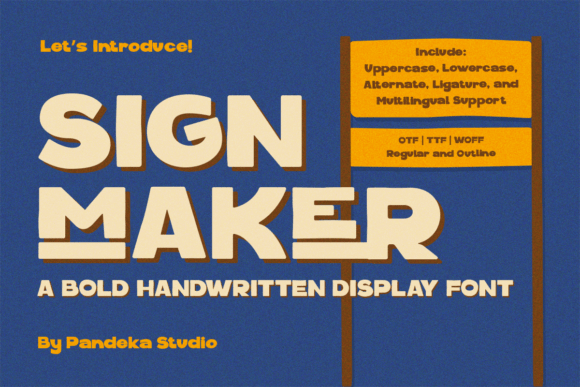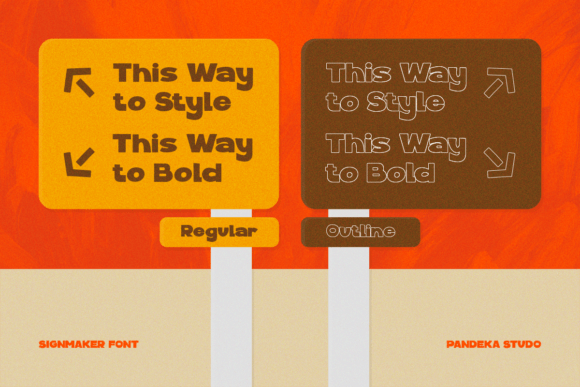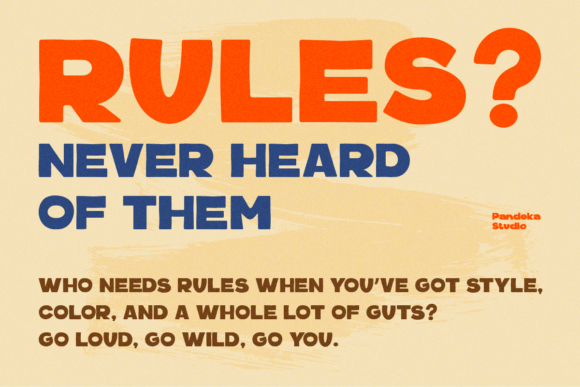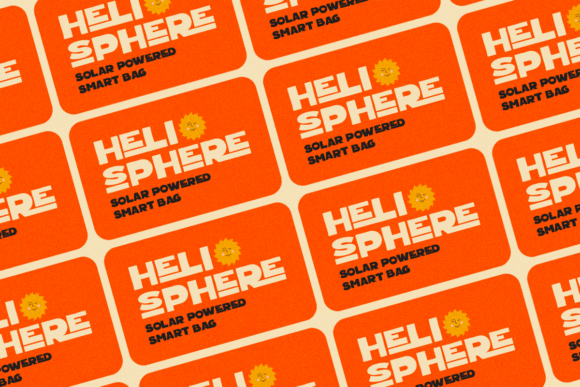
Signmaker Font: Bold Retro Display Font for Playful Typography & Branding
About the Signmaker Font
Introducing the Signmaker Font, a beautifully crafted typeface designed to elevate your creative projects. Signmaker – Bold Handwritten Display Font
Signmaker is a bold handwritten display font with a retro flair and casual charm. Perfect for strong typography needs like posters, fashion branding, product packaging, magazine covers, or standout quotes. Its playful lettering and eye-catching design bring a modern aesthetic to any project, making it a unique and memorable typeface.
Signmaker Font Usage Examples
Signmaker Font Example